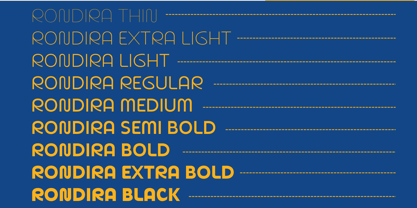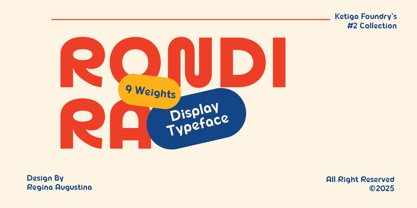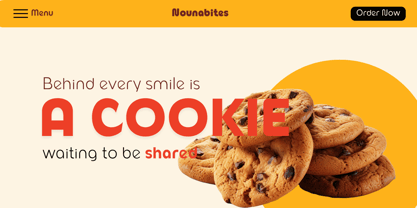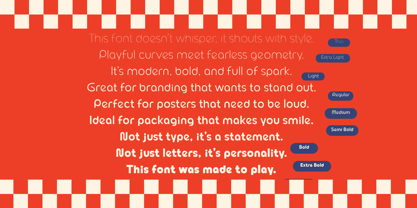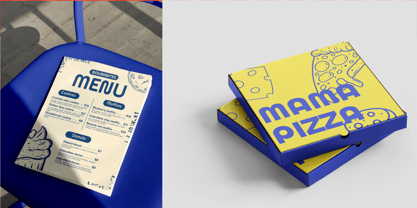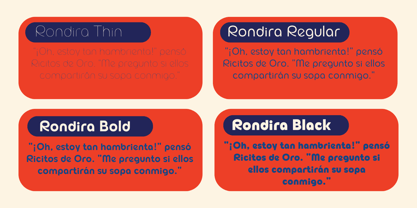
Rondira
by Ketiga Foundry
The Rondira Font Family was designed by Reginaa Augustina and published by Ketiga Foundry. Rondira contains 9 styles and family package options. More about this family
Rondira is a playful geometric typeface family that infuses bold personality and modern energy into any project. Featuring quirky curves and a confident structure, it achieves the perfect balance between fun and functionality. This makes it ideal for a variety of applications, including logos, posters, packaging, editorial layouts, and vibrant branding. The family is designed to be versatile, expressive, and full of character, allowing designers the freedom to explore both minimalistic and impactful design directions. Whether you're building a brand, crafting eye-catching campaigns, or creating standout content, Rondira is ready to elevate your design.
Designers: Reginaa Augustina
Foundry: Ketiga Foundry